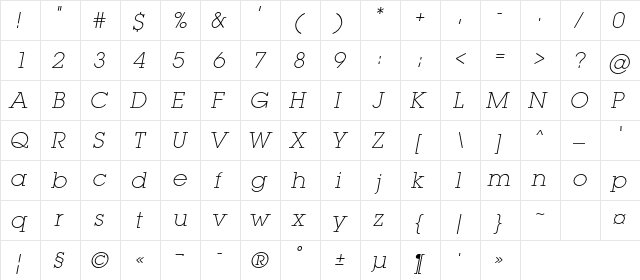
LugaExtraLightC Italic
Design Context for LugaExtraLightC Typeface
LugaExtraLightC is a composed and adaptable typeface that performs quietly and consistently across a wide range of design contexts. The slanted form adds forward momentum and visual energy. The delicate stroke weight brings airiness and refinement to layouts.
Pro Tip: Use LugaExtraLightC for emphasis, pull quotes, and subheadings where its slanted energy can add rhythm to the layout.